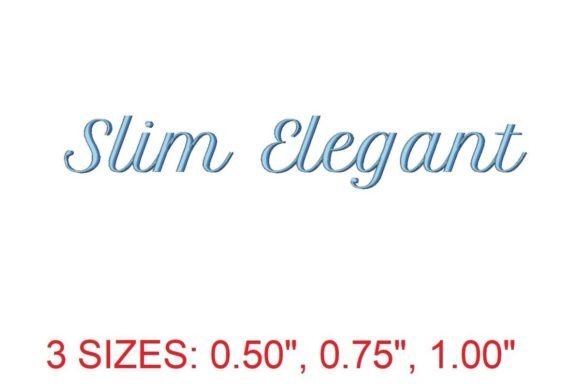
Slim Elegant Shadow Font
The Slim Elegant Shadow Font is a unique and versatile design that blends sophistication with a subtle, dramatic flair. Its elegant structure and shadow effect create a refined look that can elevate any creative project. Whether you're working on garments, accessories, or home decor, this font offers a fresh way to add character and style.
What Makes Slim Elegant Shadow Font Stand Out?
At first glance, the Slim Elegant Shadow Font appears simple, but its design is carefully crafted for both visual appeal and practical use. The font features clean lines and a slight shadow effect that adds depth without overwhelming the design. This makes it ideal for projects where clarity and elegance are equally important.
One of the key strengths of this font is its adaptability. It works well in both digital and physical formats, making it a valuable tool for creators across multiple platforms. The font's slim profile ensures it remains legible even at smaller sizes, which is especially useful for embroidery and print applications.
Creative Possibilities with Slim Elegant Shadow Font
The Slim Elegant Shadow Font opens up a world of creative possibilities. From fashion to home décor, its versatility allows it to fit into various design contexts. Here are a few ideas to spark your imagination:
- Fashion Design: Use the font to label custom clothing items, such as monogrammed bags or embroidered jackets. The subtle shadow effect adds a touch of luxury without being too bold.
- Home Décor: Incorporate the font into wall art, name plaques, or decorative signs. Its refined appearance complements modern and traditional settings alike.
- Marketing Materials: Add a stylish touch to brochures, business cards, or social media graphics. The font’s elegance can help reinforce a brand’s image and professionalism.
- Personal Projects: Whether you're creating a wedding invitation or a handmade gift, the font’s versatility ensures it can be adapted to suit your vision.
How to Use Slim Elegant Shadow Font Effectively
To get the most out of the Slim Elegant Shadow Font, consider the following tips:
- Choose the Right Size: Ensure the font size is appropriate for your intended use. For embroidery, test different sizes to find the best balance between detail and visibility.
- Pair with Complementary Elements: The font works well with minimalist designs. Pair it with solid colors or subtle patterns to maintain visual harmony.
- Experiment with Layouts: Try placing the font in different parts of your design. A centered layout may feel more formal, while a side-aligned placement can add a modern twist.
- Use for Branding: If you're building a personal brand or starting a small business, this font can help establish a consistent and professional aesthetic.
Applications Across Different Audiences and Contexts
The Slim Elegant Shadow Font is not limited to a single audience or purpose. Its timeless design means it can be tailored to fit a wide range of needs:
For Creators and Designers: This font is an excellent addition to your toolkit. It can be used in logo design, packaging, or branding materials to convey a sense of refinement and quality.
For Educators and Publishers: The font’s readability and elegance make it suitable for educational materials, book covers, or classroom displays. It provides a visually appealing yet clear presentation.
For Hobbyists and Entrepreneurs: Whether you're making custom jewelry or selling handcrafted products, the font can enhance the visual appeal of your work and help differentiate your offerings in the market.
Getting Started with Slim Elegant Shadow Font
If you're ready to explore the potential of the Slim Elegant Shadow Font, here’s how to begin:
- Test Before You Commit: Before using the font on a large-scale project, test it on a small piece to ensure it meets your expectations in terms of quality and appearance.
Conclusion
The Slim Elegant Shadow Font is more than just a design—it’s a tool that empowers creativity and enhances visual storytelling. Its elegance and versatility make it a valuable asset for anyone looking to add a touch of sophistication to their projects. Whether you're a designer, hobbyist, or entrepreneur, this font can help you bring your ideas to life with style and precision.